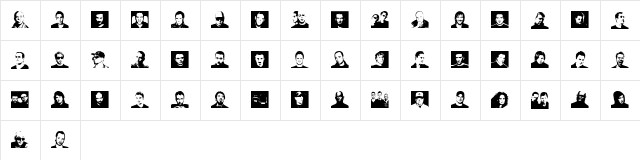
Djs symbols Regular
| Designer | Carlos Matteoli |
Design Context for Djs symbols Typeface
Djs symbols is a composed and adaptable typeface that performs quietly and consistently across a wide range of design contexts.